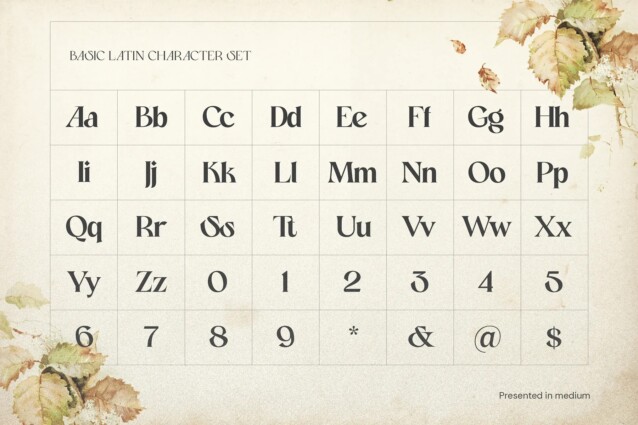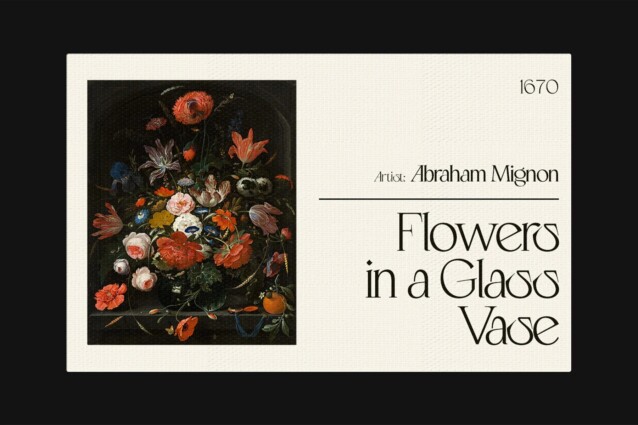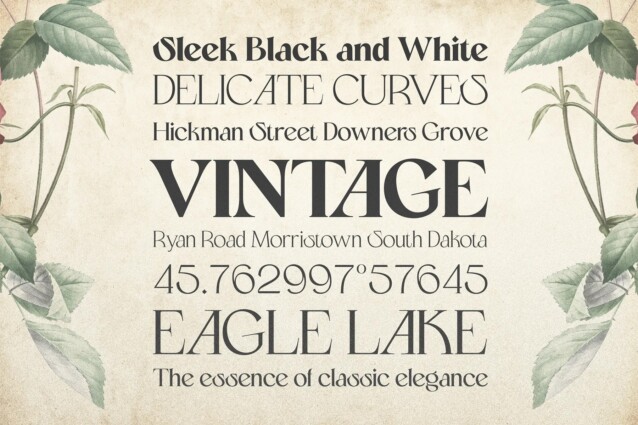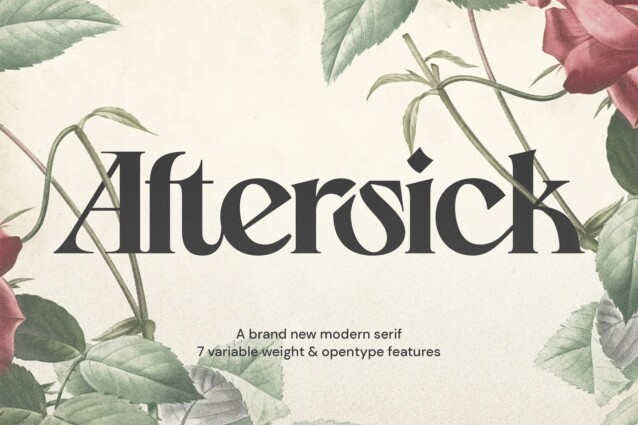
Aftersick Font
Aftersick Font is a classic modern font that is both stylish and unique with smooth curves and beautiful ligatures. With its elegant serifs and contemporary details, Aftersick Serif embodies a unique fusion of classic sophistication and contemporary appeal. Drawing inspiration from vintage typography, Aftersick Serif showcases a subtle nostalgia that evokes a sense of timelessness design.